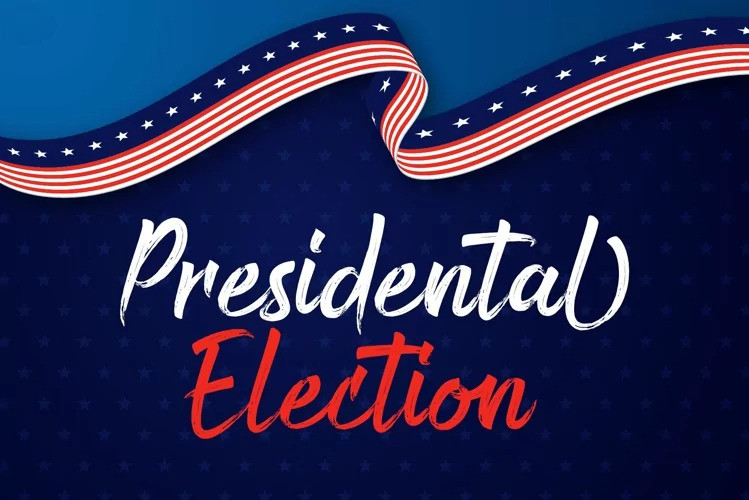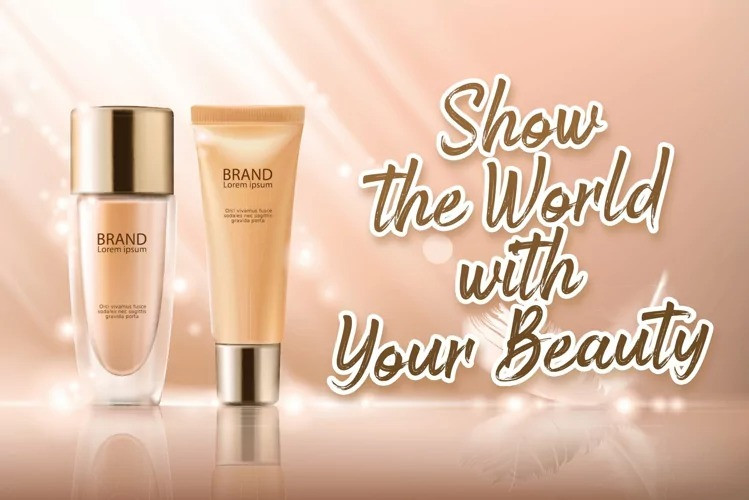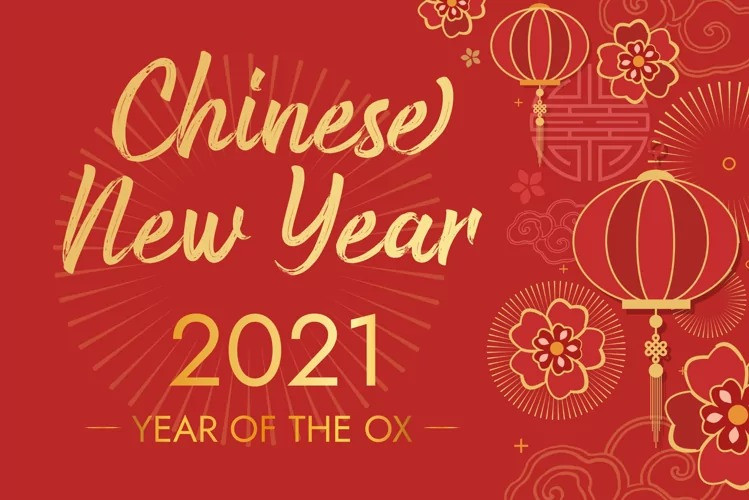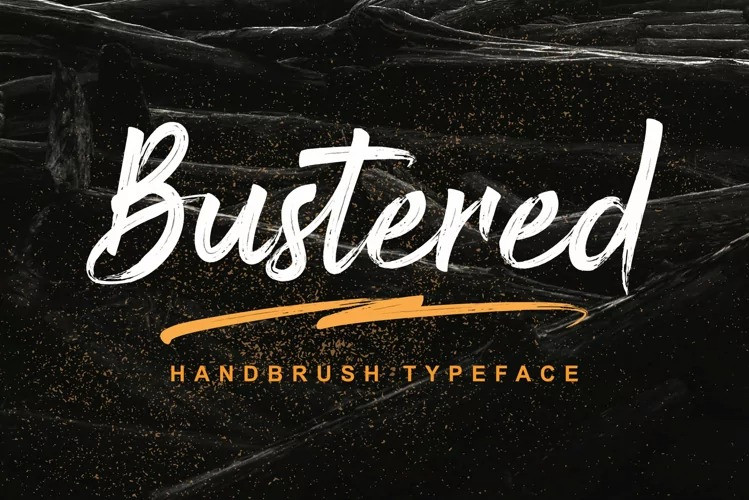
Bustered Brush Font
It’s a original textured brush calligraphy font manufactured by Dumadistyle. The style of this font are stylish, classic, elegant, luxury and strong brush font. Bustered is perfect for name branding, advertising design, t-shirt design, jacket design, formal events, celebration design, posters, web, banners, book covers, social media, beauty skincare advertisements, and other designs.